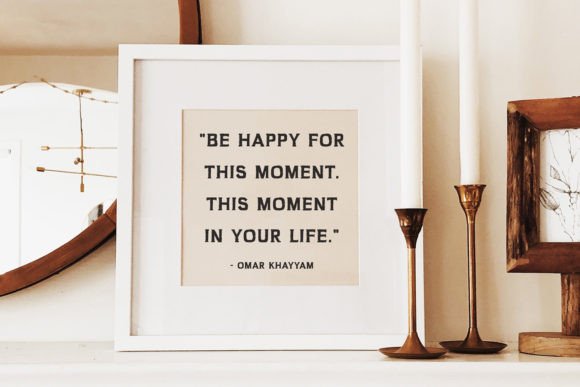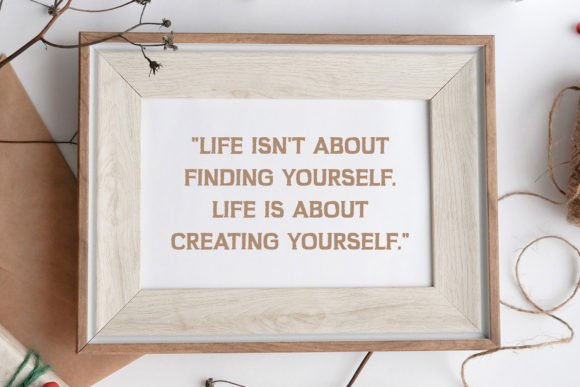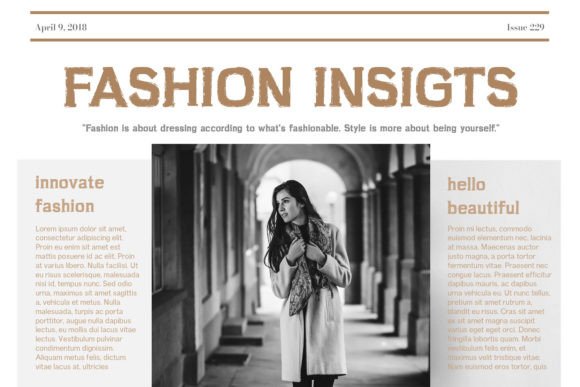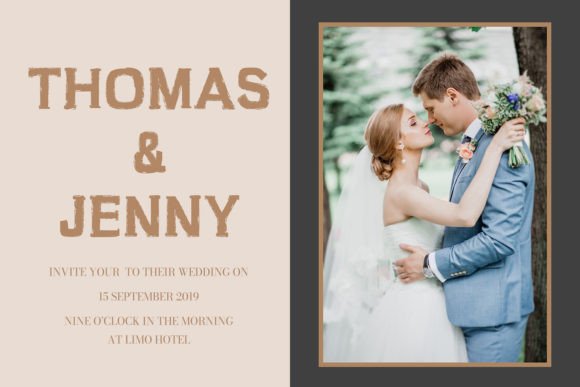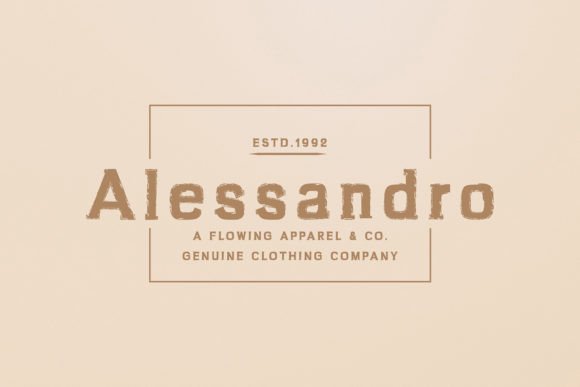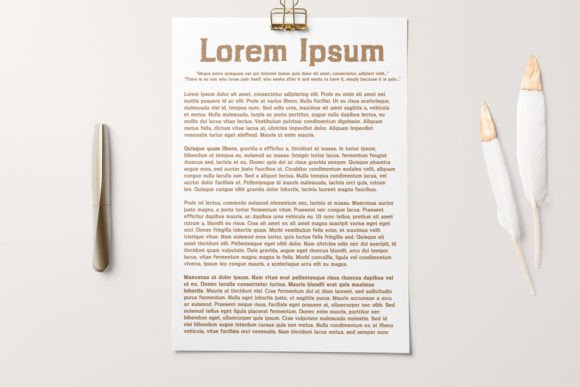
Introduction to Omran Font
Omran Brush is a shiny, attractive, and decorative handcrafted font with cute and contemporary feels for future projects.
Omran font is excellent for various tasks such as packaging, presentations, logos, headlines, lettering, posters, branding, quotes, titles, magazine, headings, web layouts, advertising, invitations, packaging design, books, and almost any creative design .
Key Features of Omran Font
Why Choose Omran Font?
Omran Font offers exceptional quality and versatility, making it a valuable addition to your design toolkit. Whether you’re creating for personal projects or commercial use, Omran Font delivers professional results.